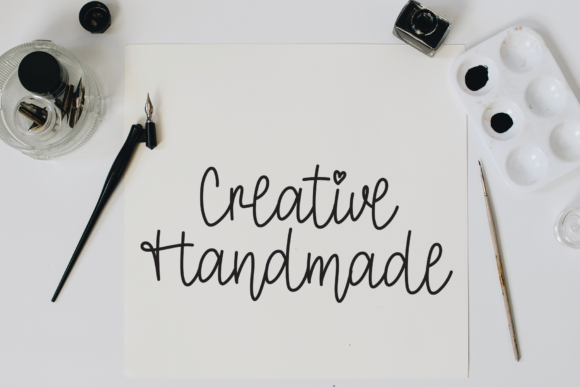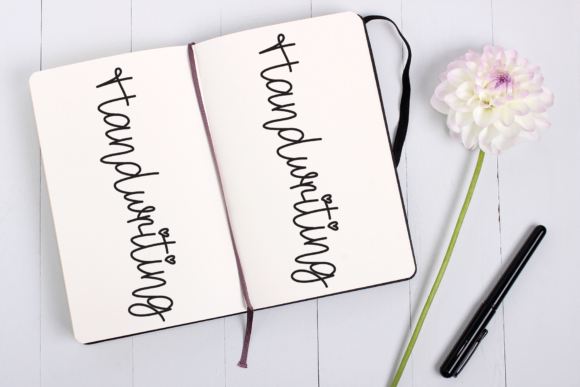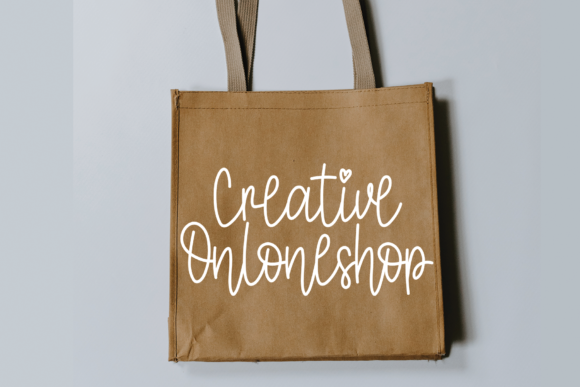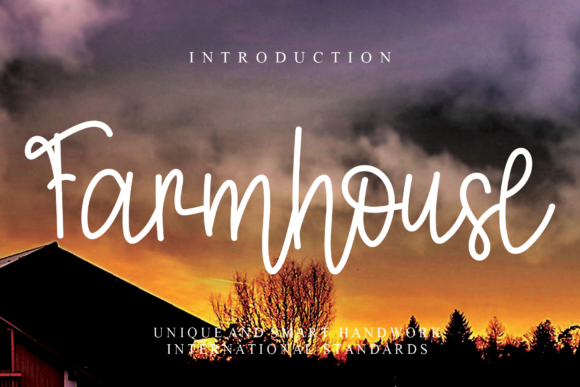
Introducing Farmhouse Font: The Sweet and Romantic Calligraphy Typeface
Are you a designer or crafter looking for a font that adds a touch of luxury and whimsy to your design projects? Look no further than Farmhouse Font, a beautiful and romantic calligraphy typeface that is sure to capture your heart. With its dancing characters and elegant lines, Farmhouse Font is the perfect addition to any design project that requires a touch of sweetness and sophistication.
Farmhouse Font is a carefully crafted calligraphy typeface that features characters that dance along the baseline, creating a sense of movement and fluidity. This unique feature sets Farmhouse Font apart from other fonts and makes it perfect for designs that require a touch of elegance and whimsy. The font is designed to be highly legible, making it suitable for use in a variety of design projects, from wedding invitations and stationery to branding and packaging.
- Romantic and Sweet: Farmhouse Font is a romantic and sweet calligraphy typeface that is perfect for designs that require a touch of elegance and sophistication.
- Dancing Characters: The characters in Farmhouse Font dance along the baseline, creating a sense of movement and fluidity that adds visual interest to any design.
- Luxury Spark: Farmhouse Font is designed to add a luxury spark to any design project, making it perfect for high-end branding, wedding invitations, and stationery.
- Highly Legible: Despite its elegant and cursive nature, Farmhouse Font is highly legible, making it suitable for use in a variety of design projects.
Uses for Farmhouse Font
Farmhouse Font is a versatile typeface that can be used in a variety of design projects, including:
- Wedding Invitations: Add a touch of romance and elegance to your wedding invitations with Farmhouse Font.
- Stationery: Use Farmhouse Font to create beautiful and elegant stationery, including letterheads, greeting cards, and gift tags.
- Branding: Add a touch of luxury and sophistication to your brand with Farmhouse Font, perfect for high-end brands and businesses.
- Packaging: Use Farmhouse Font to create beautiful and eye-catching packaging that stands out on store shelves.
Here are a few tips for using Farmhouse Font in your design projects:
- Use it sparingly: Farmhouse Font is a statement font, so use it sparingly to add emphasis and visual interest to your design.
- Pair it with a simple font: Pair Farmhouse Font with a simple font to create visual contrast and make your design stand out.
- Experiment with colors: Farmhouse Font looks beautiful in a variety of colors, so experiment with different colors to find the one that works best for your design.
Farmhouse Font is a beautiful and romantic calligraphy typeface that is perfect for designers and crafters looking to add a touch of luxury and whimsy to their design projects. With its dancing characters and elegant lines, Farmhouse Font is sure to capture your heart and add a touch of sophistication to any design. Whether you’re creating wedding invitations, stationery, branding, or packaging, Farmhouse Font is the perfect choice.